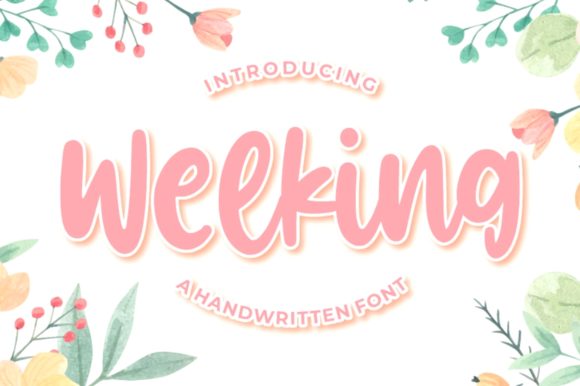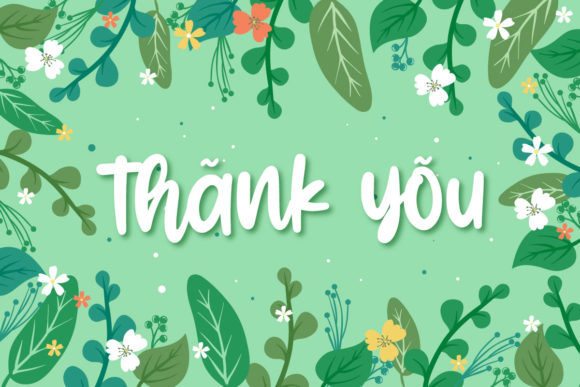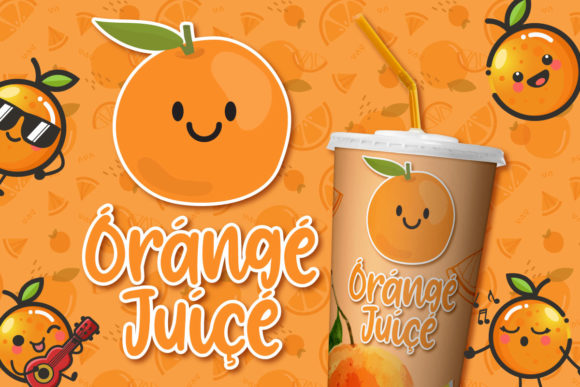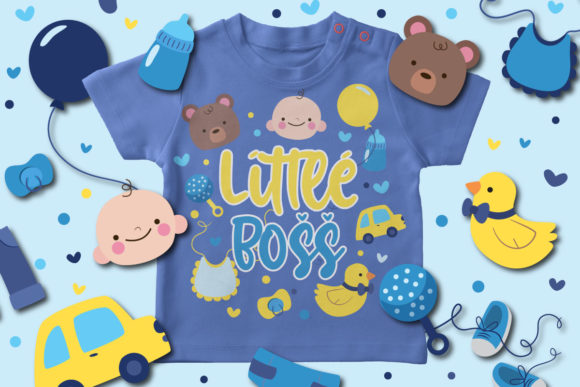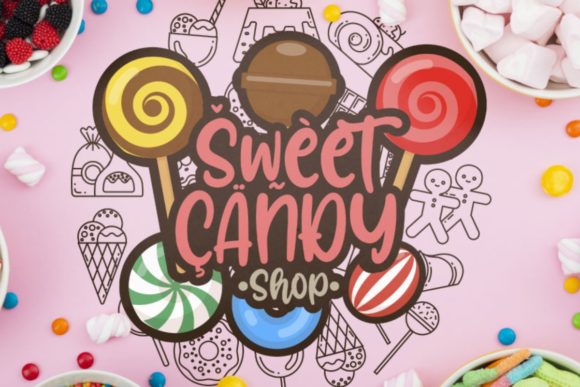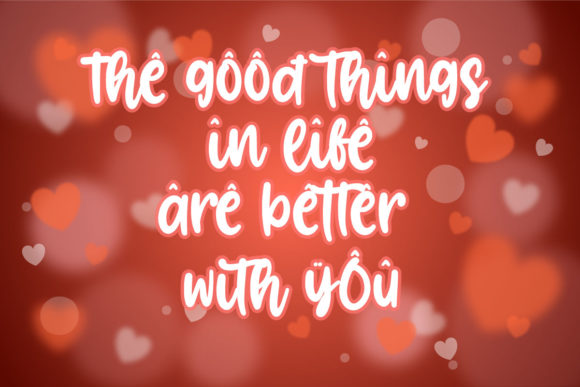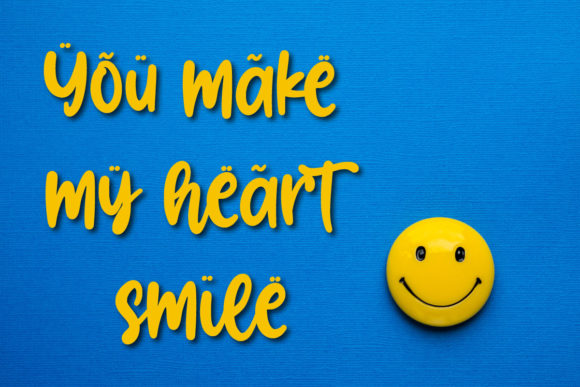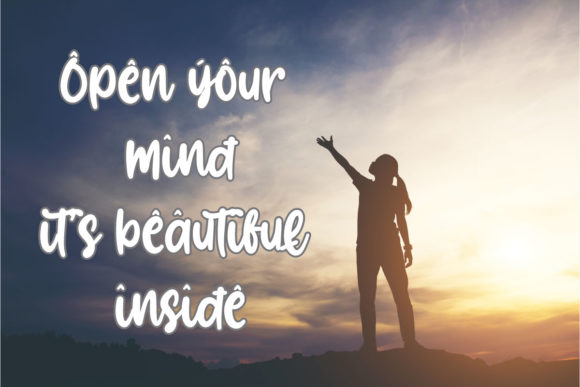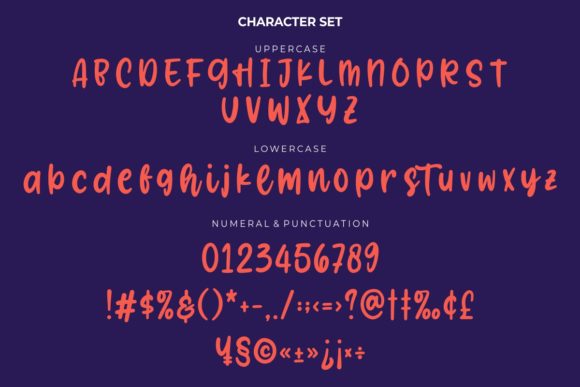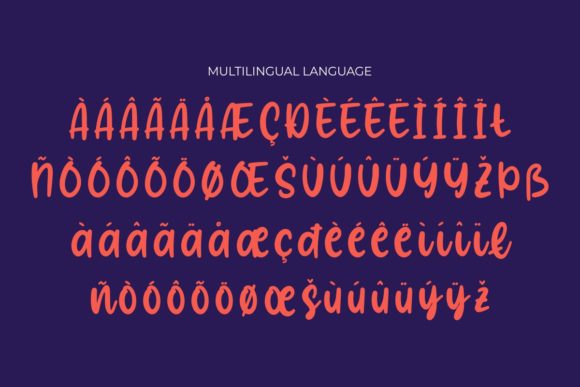
Welking Font
About Welking Font
Welking is a modern and chic handwritten font, carefully handcrafted to become a true favorite. Its casual charm makes it appear wonderfully down-to-earth, readable and, ultimately, incredibly versatile. This font will look outstanding in any context, whether it’s being used on busy backgrounds or as a standalone headline!